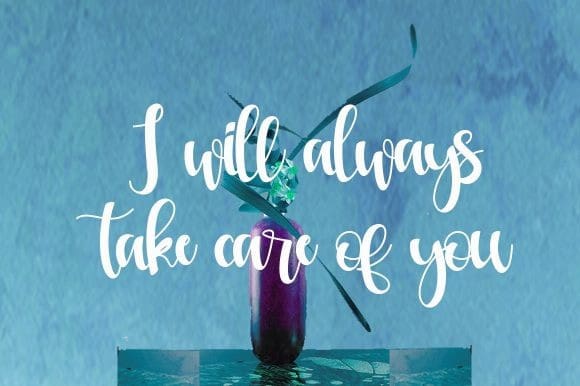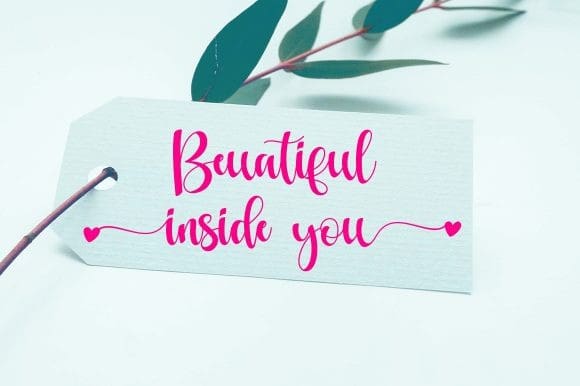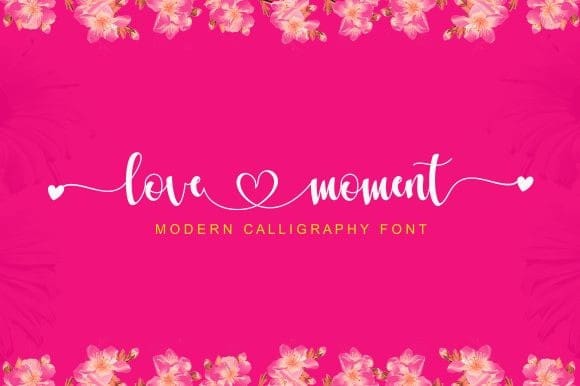
Love Moment Font
Love Moment Font is a modern, jolly and romantic handwritten font. Whatever the topic, this font will be a wonderful asset to your font library, as it has the potential to enhance any creation.
This font is PUA encoded which means you can access all glyphs and swashes with ease!